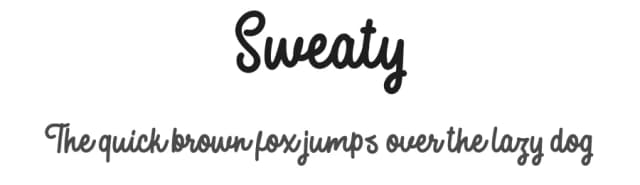
1 / 5About Sweaty Font
Sweaty by windestrian is a playful monoline script that brings authentic hand-drawn character to modern design work. With its simple yet expressive letterforms, this font transforms everyday typography into something genuinely engaging without requiring complex layering or styling effects. The typeface excels at creating custom t-shirt graphics where both legibility and personality are essential, designing hand-lettered product labels for artisanal brands, and crafting personalized wedding invitation suites that capture effortless elegance. Its consistent monoline construction ensures clear readability whether rendered large on signage or small on digital platforms, making it equally effective for Instagram post text overlays and social media branding. The font's straightforward design philosophy means it works beautifully in isolation or combined with other typefaces, giving designers genuine flexibility across different projects and mediums. Beyond these primary applications, Sweaty performs well for greeting card designs, custom sticker graphics, and logo concepts where approachable, human-centered aesthetics matter. The font includes comprehensive glyph coverage and multilingual support, expanding its usefulness across diverse design contexts. Whether building a complete brand identity or adding character to individual assets, this typeface delivers the hand-lettered quality that contemporary audiences expect from modern, relatable design. Its simplicity works in its favor, no unnecessary flourishes, just solid, dependable letterforms that communicate clearly. Get Sweaty Font from Creative Fabrica and add this versatile choice to your design library.
Sweaty Font is a script font that shines as a display or heading face. Pair it with a clean sans-serif or serif font for body text β the contrast creates a clear hierarchy while the two styles stay balanced and easy to read.
Sweaty Font
by windestrian